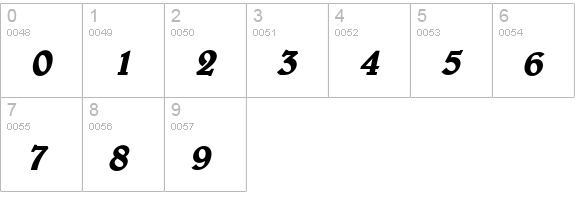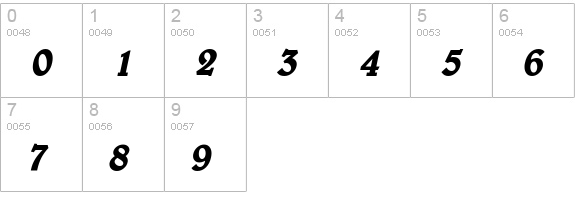
Blew Bold Italic is a strong, high-contrast, italic variant in the Blew typeface family \xE2\x80\x94 well suited to headlines, attention-grabbing titles, and strong calls-to-action.
Blew Bold Italic font is a stunning display typeface that exudes elegance and modern sophistication. With its bold weight and sleek italic styling, this font is perfect for adding a touch of flair to any design project. The unique letterforms of Blew Bold Italic make a bold statement and command attention with their strong presence on the page. What's even better is that Blew Bold Italic font is available for free download at FontsMarket.com. This means that you can easily access this premium font without any cost, making it a valuable addition to your font collection. Whether you're designing a poster, branding materials, or website graphics, Blew Bold Italic font will elevate your projects and give them a professional edge. Don't miss out on the opportunity to enhance your designs with the striking Blew Bold Italic font. Download it for free today and start creating stunning visuals that will leave a lasting impression.